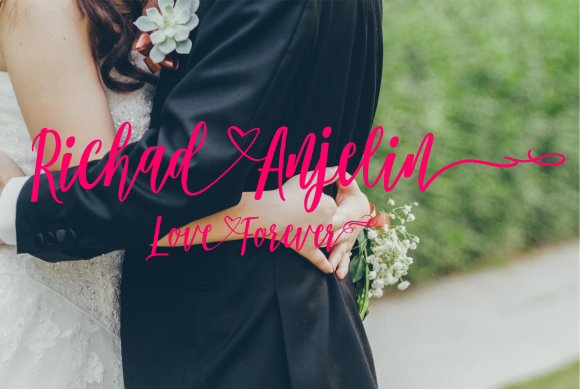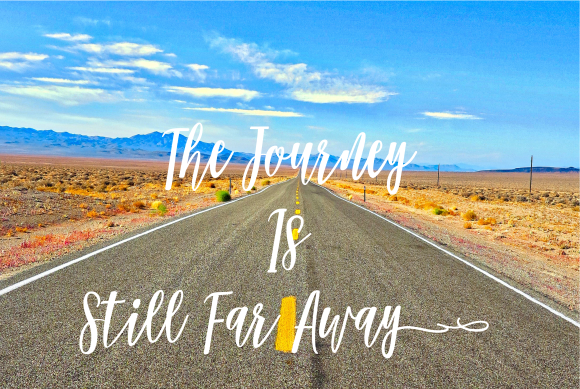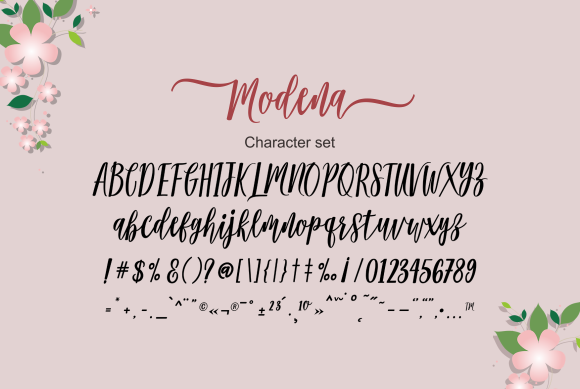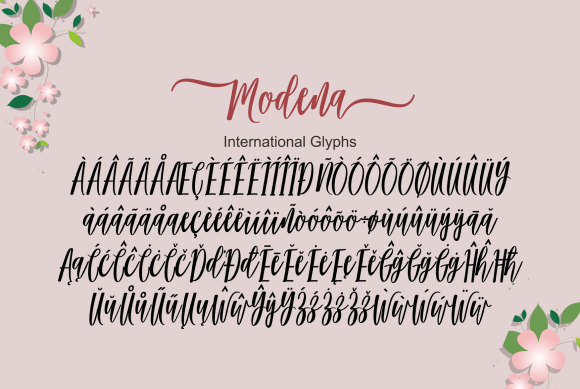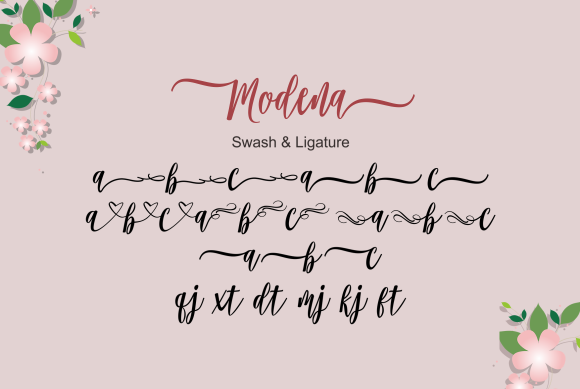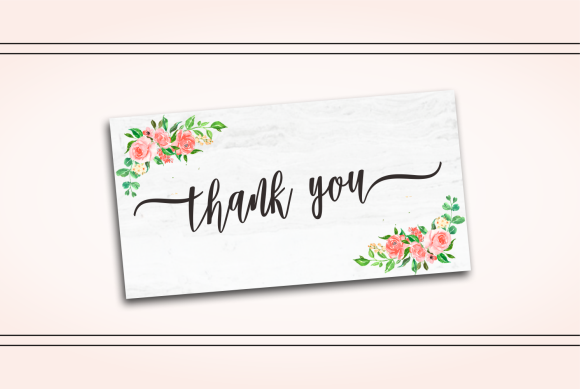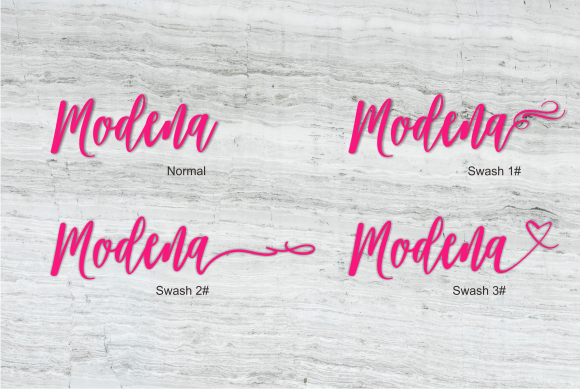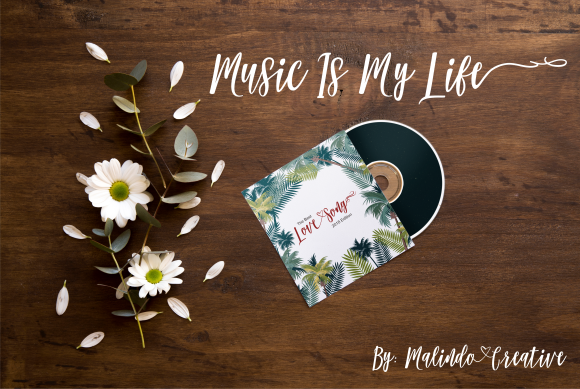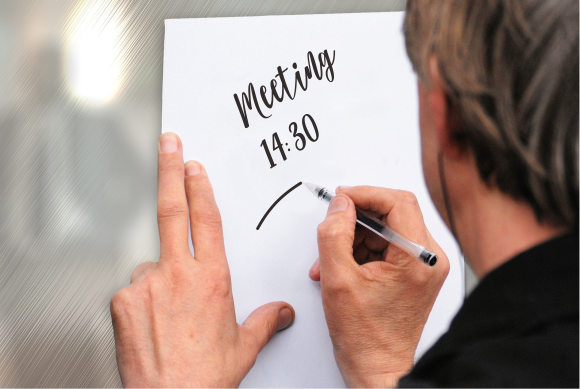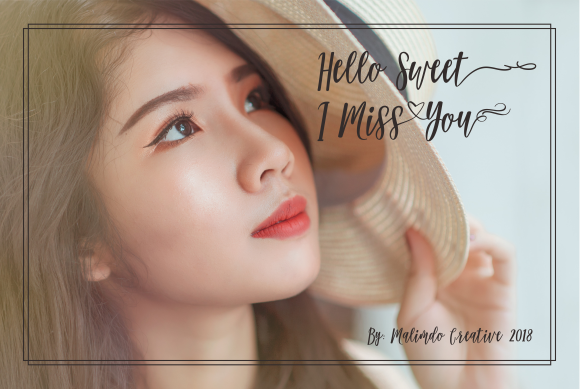
Modena Font
About Modena Font
The Modena is a beautiful handwriting font. It has an irregular writing style, which is perfect for every design that needs an unique, yet striking typeface.